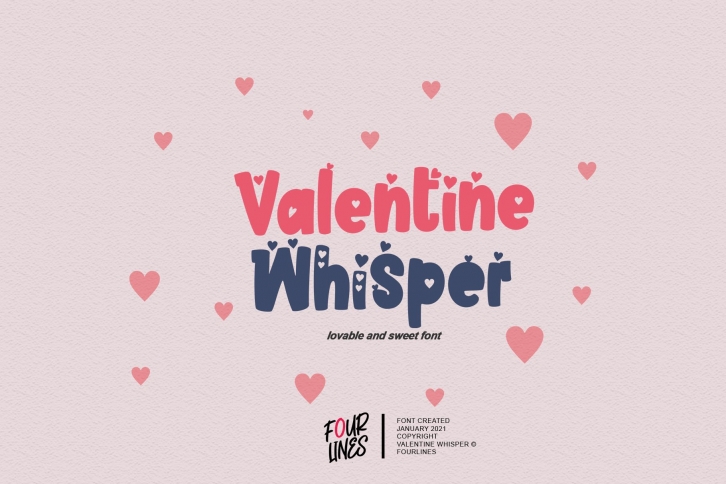
Valentine Whisper is a great font that was designed by Fourlines Design. Imagine the amount of combinations you can create using this font! The archive is 20.72 MB and it was released on January 15, 2021. Valentine Whisper looks beautiful on wedding invitations, greeting cards, logos, posters, labels, t-shirt designs, logos, business cards and is perfect for use in ink or watercolor works, fashion, magazines, packaging and food menus, children's books and more!